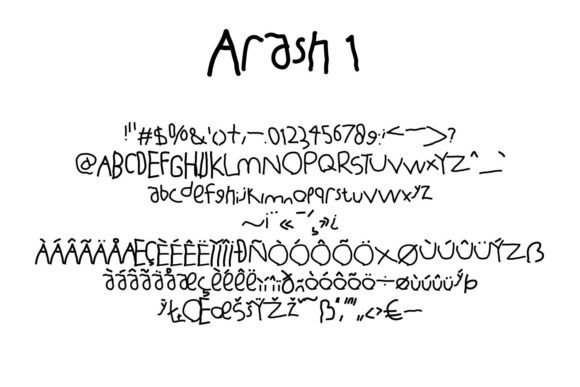
Arash Font
Arash is a kid’s handwriting font that exudes a playful and approachable vibe with its hand-drawn aesthetic. Its attractive design boasts clean lines and a bold presence that commands attention. Perfect for adding a touch of fun to any project, from menus and signage to social media graphics and more.